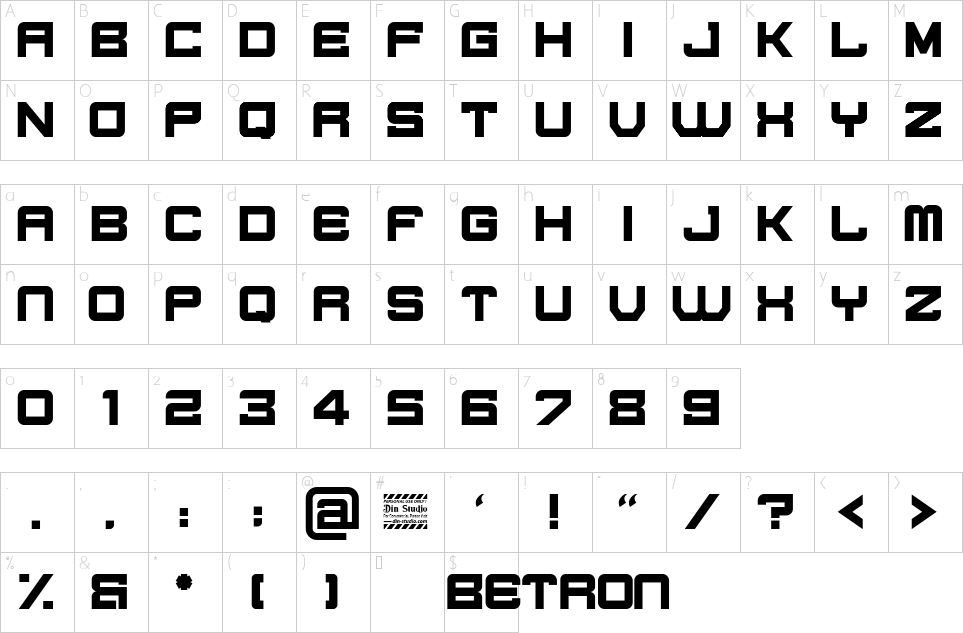
Betron Font
BETRON is a bold and authentic e-sport font. It is suitable for any project like branding, t-shirt design and etc. The font is containing uppercase characters, numerals, and a large range of punctuation.
• Numerals and Punctuations